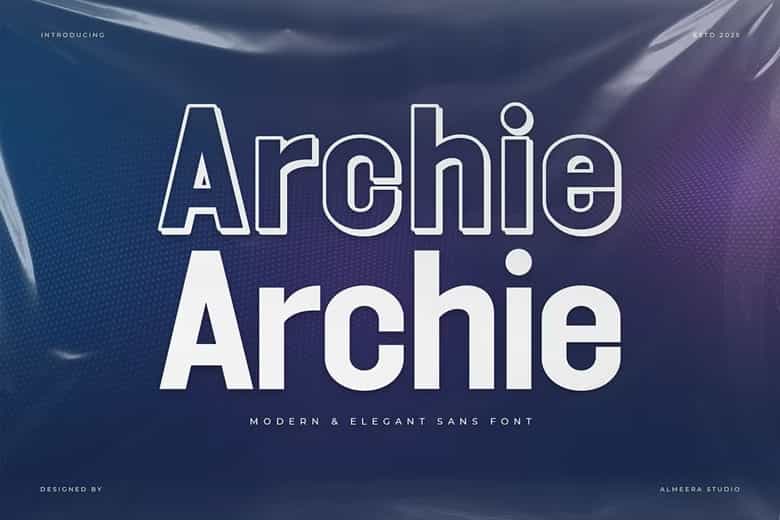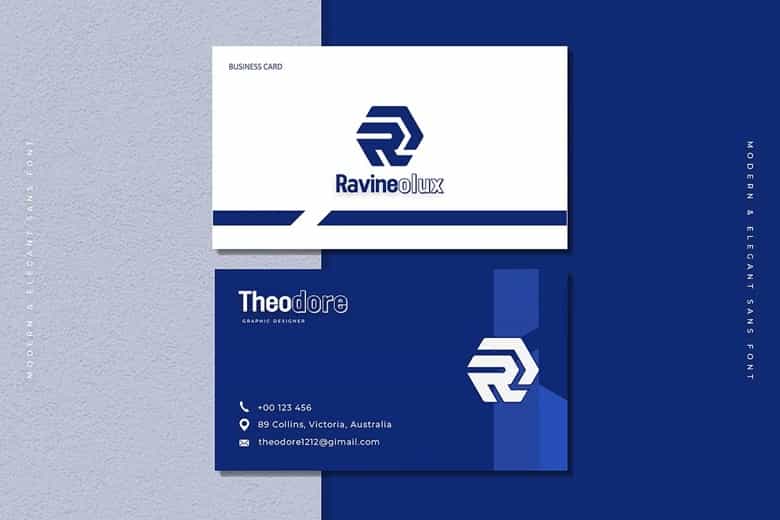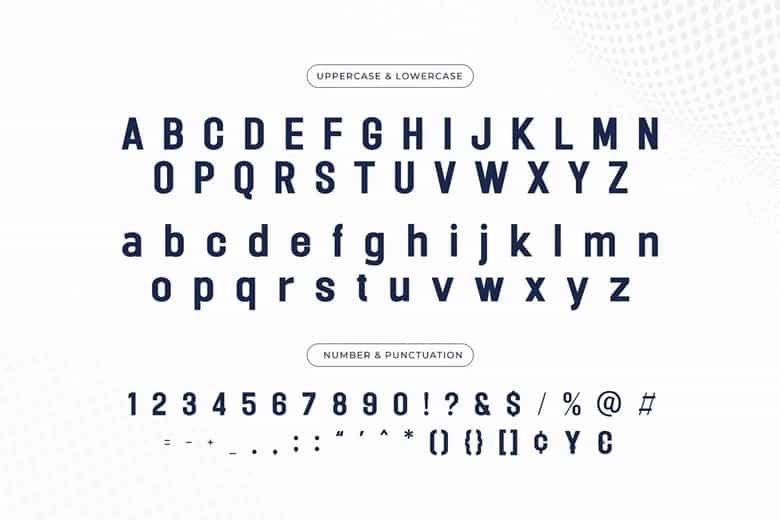
Archie is a modern, utilitarian sans-serif font, with some flair. Having clear lines and being versatile, Archie can be used in editorial headlines, web interfaces, product packages, and fashion campaigns. Its readability, friendliness and personality is available in all letterforms.